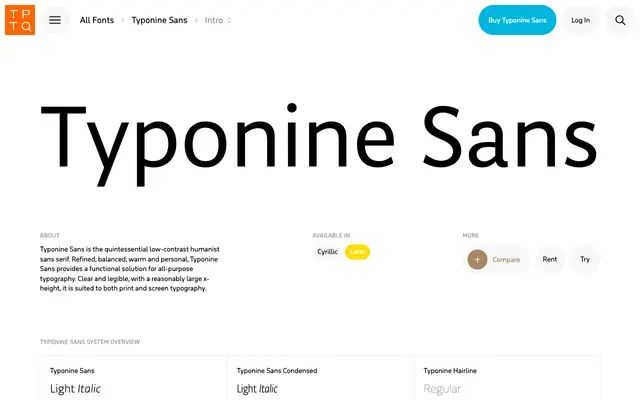
Typonine Sans specimen from Typotheque
A structured sans-serif system with standard, condensed and hairline subfamilies, spanning four weights with matching italics.
Organised into three subfamilies, Typonine Sans covers standard and condensed widths plus a hairline cut, each running across Light, Regular, Medium and Bold with italics throughout. The system is well-suited to editorial and information design where width variation and tonal range are needed within a consistent voice. Named city editions are offered as individual weights for separate purchase.
Typonine Sans presents clean, rational letterforms with a humanist warmth, organised into a system of standard and condensed widths across multiple weights, typical of contemporary humanist sans design.